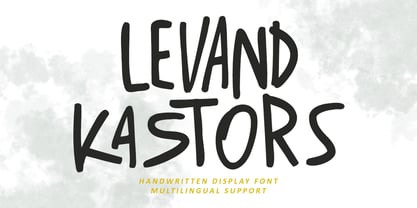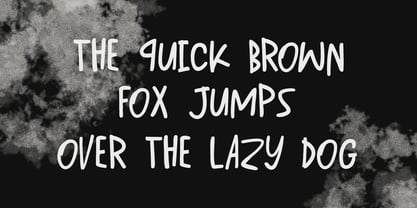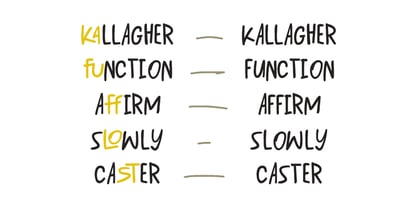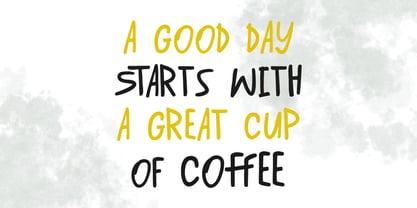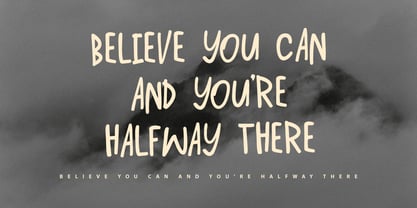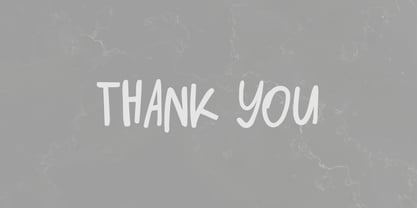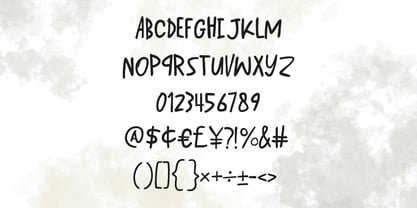
MC Levand Kastors
by Maulana Creative
The MC Levand Kastors Font Family was designed by Gilang Maulana and published by Maulana Creative. MC Levand Kastors contains 1 styles. More about this family
Levand Kastors is a display handwritten font. With medium stroke, fun character with a bit of ligatures. To give you an extra creative work. Levand Kastors font support multilingual more than 100+ language. This font is good for logo design, Social media, Movie Titles, Books Titles, a short text even a long text letter and good for your secondary text font with sans or serif. Make a stunning work with Levand Kastors font.
Designers: Gilang Maulana
Foundry: Maulana Creative